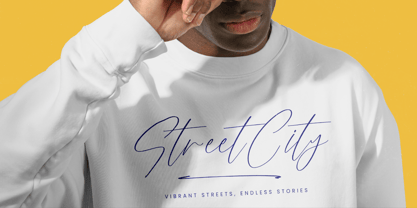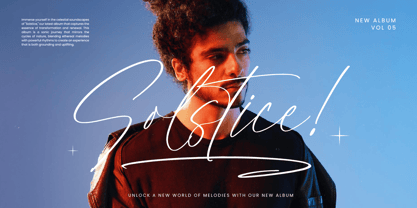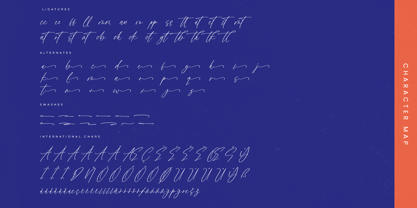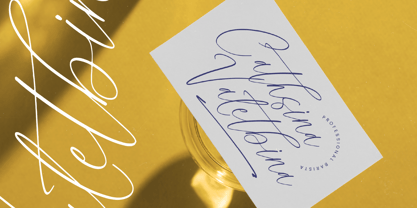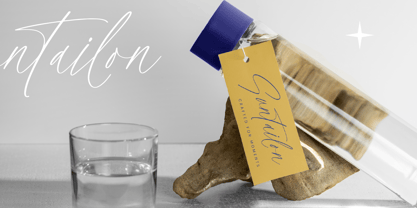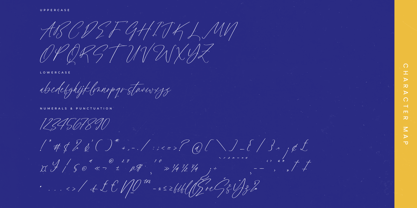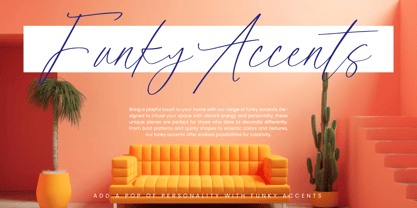
Cocktails Tastefulic
by Letterena Studios
The Cocktails Tastefulic Font Family was designed by Heru Utama Putra and published by Letterena Studios. Cocktails Tastefulic contains 2 styles and family package options. More about this family
Cocktails Tastefulic – Modern Stylish Script , from Letterena, is a Luxury Script font, suitable for any projects such as: logos, branding projects, homeware designs, product packaging, mugs, quotes, posters, shopping bags, t-shirts, book covers, name card, invitation cards, greeting cards, label, photography, watermark, special events, and all your other luxury and beautiful projects that need a Luxury Script taste.